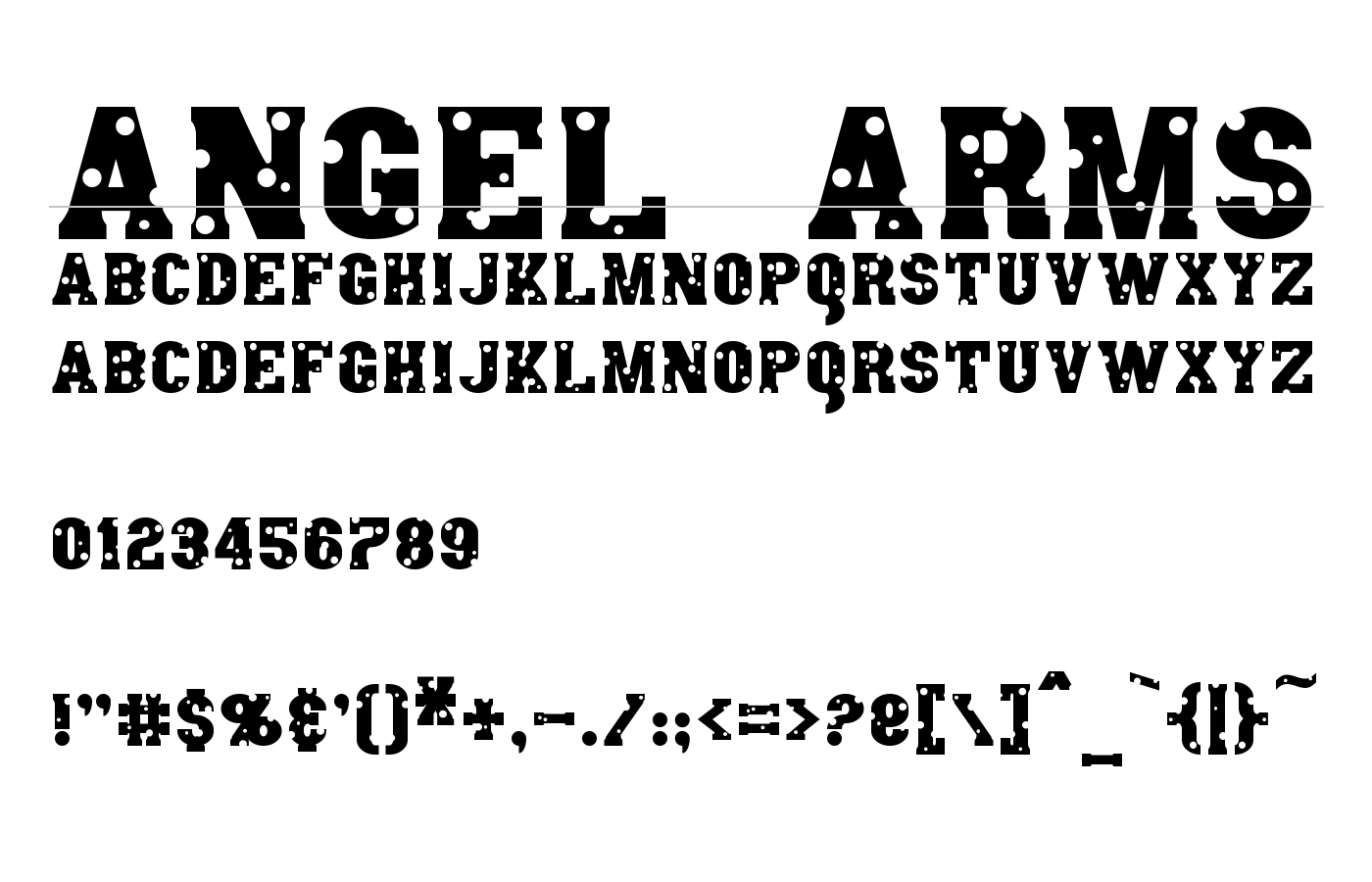
Angel Arms is a bold slab serif font with a strong, vintage western vibe, characterized by its heavy weight, condensed width, and playful perforated texture. Its sturdy letterforms and high contrast between thick and thin strokes make it ideal for eye-catching headlines, logos, or posters that want to convey a rugged yet charming personality. This font works best for branding and design projects that aim for a nostalgic, adventurous feel with a distinctive flair.
Angel Arms Font
About Angel Arms Font